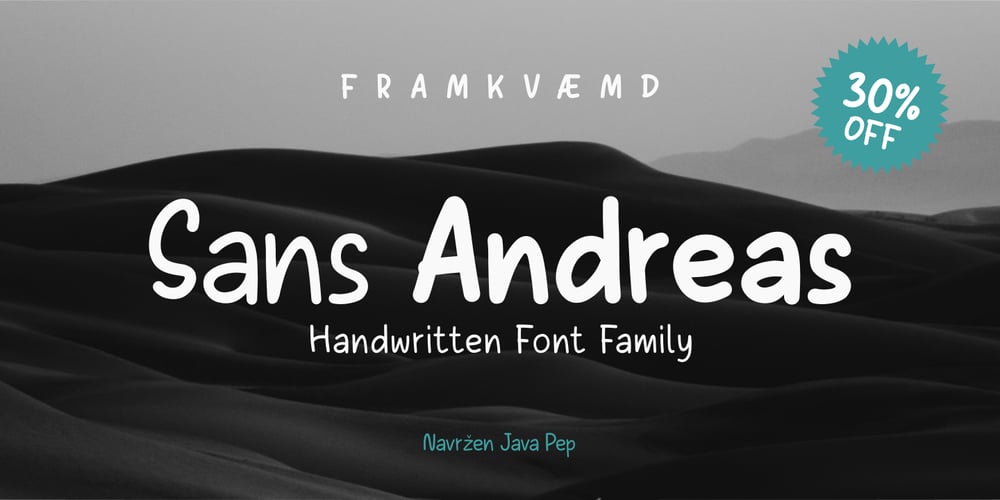
Sans Andreas Font Family was designed by Java Pep and published by Java Pep. Sans Andreas contains 4 styles and family package options. Proudly presenting the newest handwritten font called Sans Andreas. These font made by handwritten style, so all shape looks unique and natural. Sans Andreas is a family font, with 4 styles regular, italic, bold, bold italic. Sans Andreas is also perfect for all your project that has sense fun, playful, art, and .etc If you have any questions or technical support don’t hesitate to comment, message or contact java.indonesian@yahoo.com. Have a nice day.